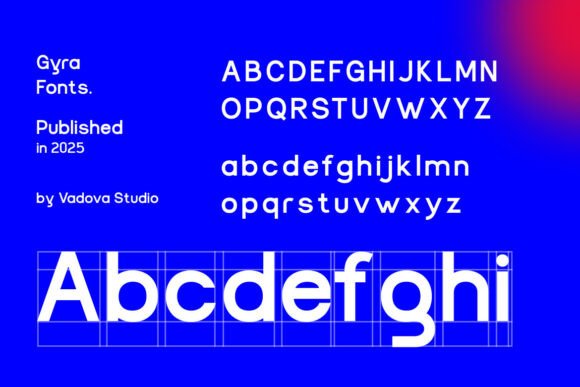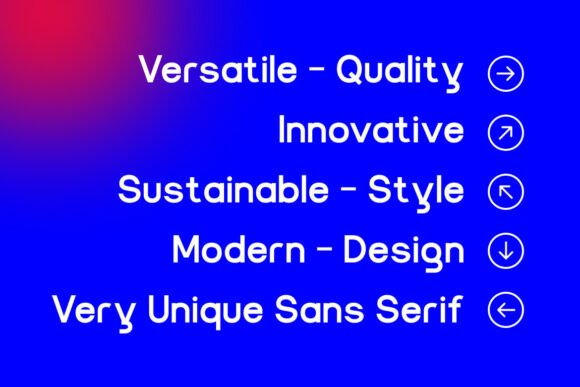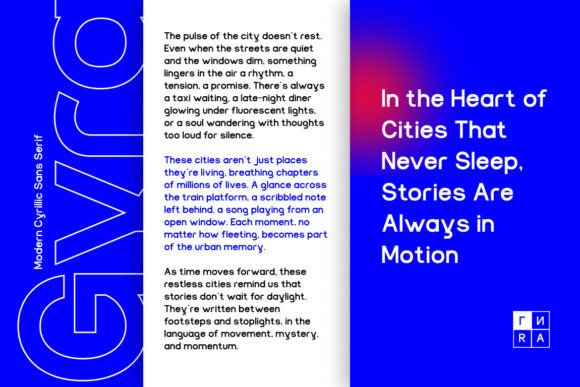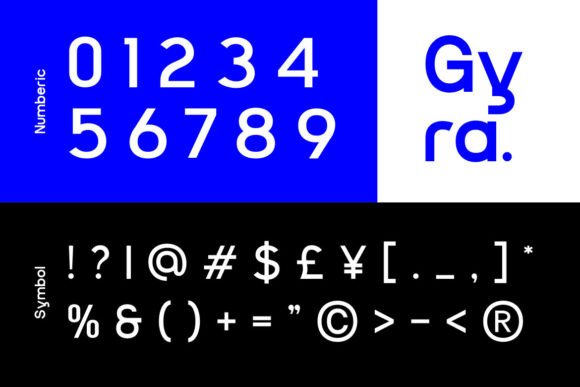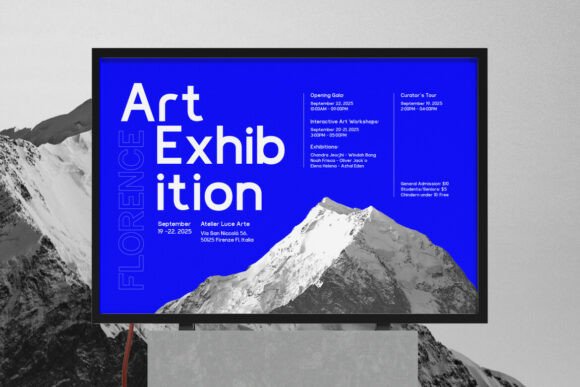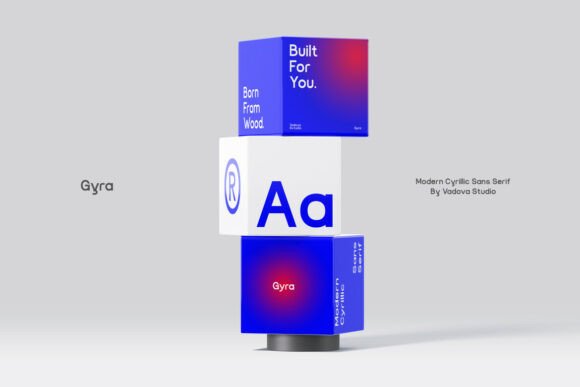
Introducing Gyra Font: The Modern Cyrillic Sans Serif for Global Communication
In the ever-evolving world of typography, a new font has emerged to revolutionize the way we communicate across cultures and languages. Meet Gyra, a modern sans serif font that effortlessly balances geometric precision with a friendly, approachable character. Designed to cater to the needs of tech startups, creative agencies, and UI/UX projects, Gyra is the perfect choice for brands looking to make a statement in the global market.
Key Features of Gyra Font
So, what sets Gyra apart from other fonts? Here are some of its key features:
- Geometric Precision: Gyra’s design is rooted in geometric precision, giving it a modern and sleek look that’s perfect for tech-savvy brands.
- Distinctive Rounded Terminals: The font’s distinctive rounded terminals on key characters add a touch of friendliness and approachability, making it ideal for brands that want to connect with their audience on a personal level.
- Generous X-Height: Gyra’s generous x-height ensures that the font is highly legible, even at smaller sizes, making it perfect for UI/UX projects and digital applications.
- Seamless Integration of Latin and Cyrillic Scripts: One of Gyra’s most impressive features is its ability to seamlessly integrate Latin and Cyrillic scripts, allowing brands to maintain a consistent voice across diverse markets.
The Benefits of Using Gyra Font
So, why should designers and crafters choose Gyra font for their projects? Here are some benefits:
- Consistency Across Markets: With Gyra, brands can maintain a consistent visual identity across different markets and languages, ensuring that their message is conveyed clearly and effectively.
- High-Energy Vibe: Gyra’s modern design and distinctive rounded terminals give it a high-energy vibe that’s perfect for tech startups, creative agencies, and vibrant UI/UX projects.
- Improved Legibility: The font’s generous x-height and geometric precision ensure that it’s highly legible, even at smaller sizes, making it perfect for digital applications.
- Flexibility: Gyra’s seamless integration of Latin and Cyrillic scripts makes it a versatile font that can be used in a wide range of projects, from branding and advertising to UI/UX design.
Who Can Benefit from Gyra Font?
Gyra font is perfect for a wide range of designers, crafters, and brands, including:
- Tech Startups: Gyra’s modern design and high-energy vibe make it perfect for tech startups looking to establish a strong brand identity.
- Creative Agencies: The font’s distinctive rounded terminals and geometric precision make it ideal for creative agencies looking to add a touch of personality to their designs.
- UI/UX Designers: Gyra’s legibility and seamless integration of Latin and Cyrillic scripts make it a great choice for UI/UX designers working on digital projects.
- Brands Looking to Expand Globally: Gyra’s ability to seamlessly integrate Latin and Cyrillic scripts makes it perfect for brands looking to expand their reach into new markets.
In conclusion, Gyra font is a game-changer for designers, crafters, and brands looking to make a statement in the global market. Its modern design, distinctive rounded terminals, and seamless integration of Latin and Cyrillic scripts make it the perfect choice for tech startups, creative agencies, and UI/UX projects. With Gyra, brands can maintain a consistent voice across diverse markets, convey a high-energy vibe, and improve legibility in digital applications.